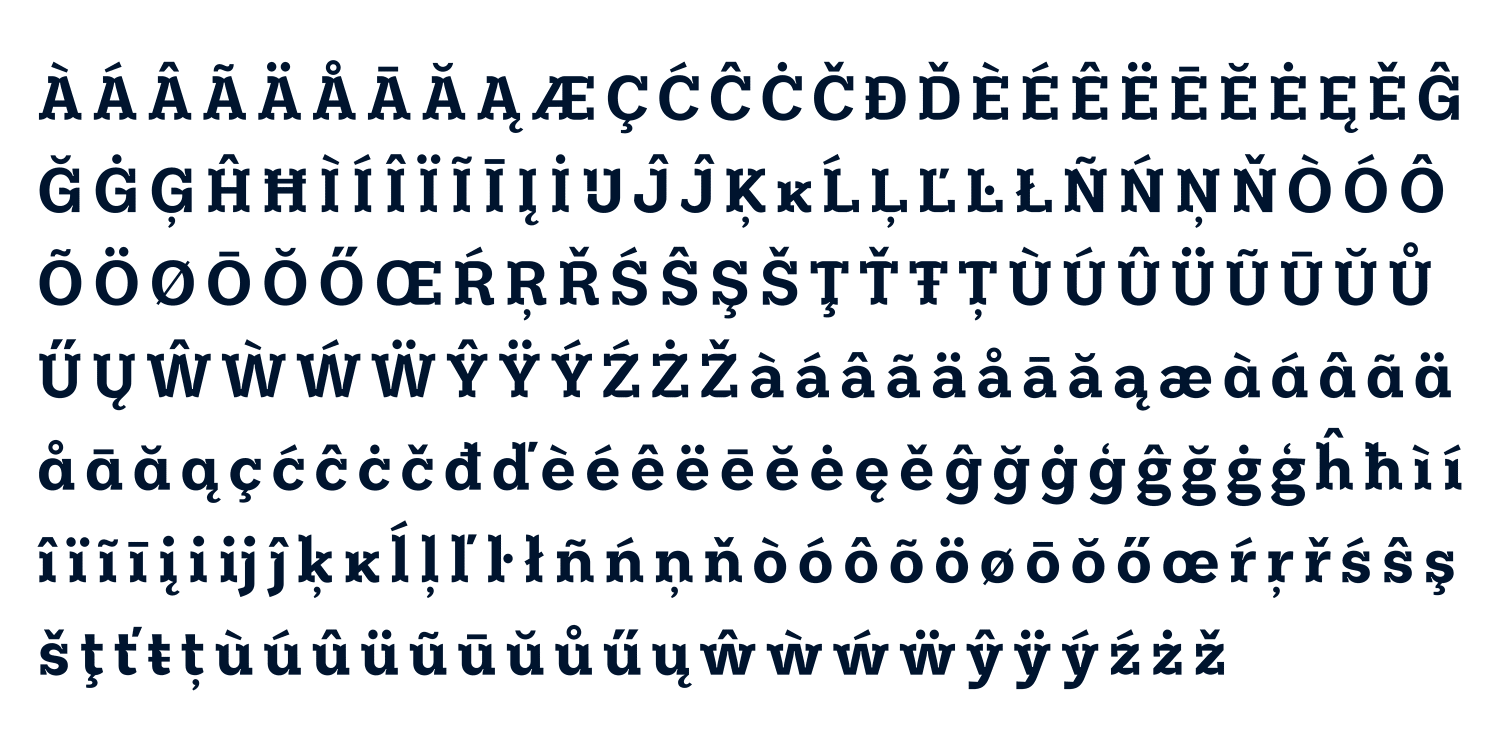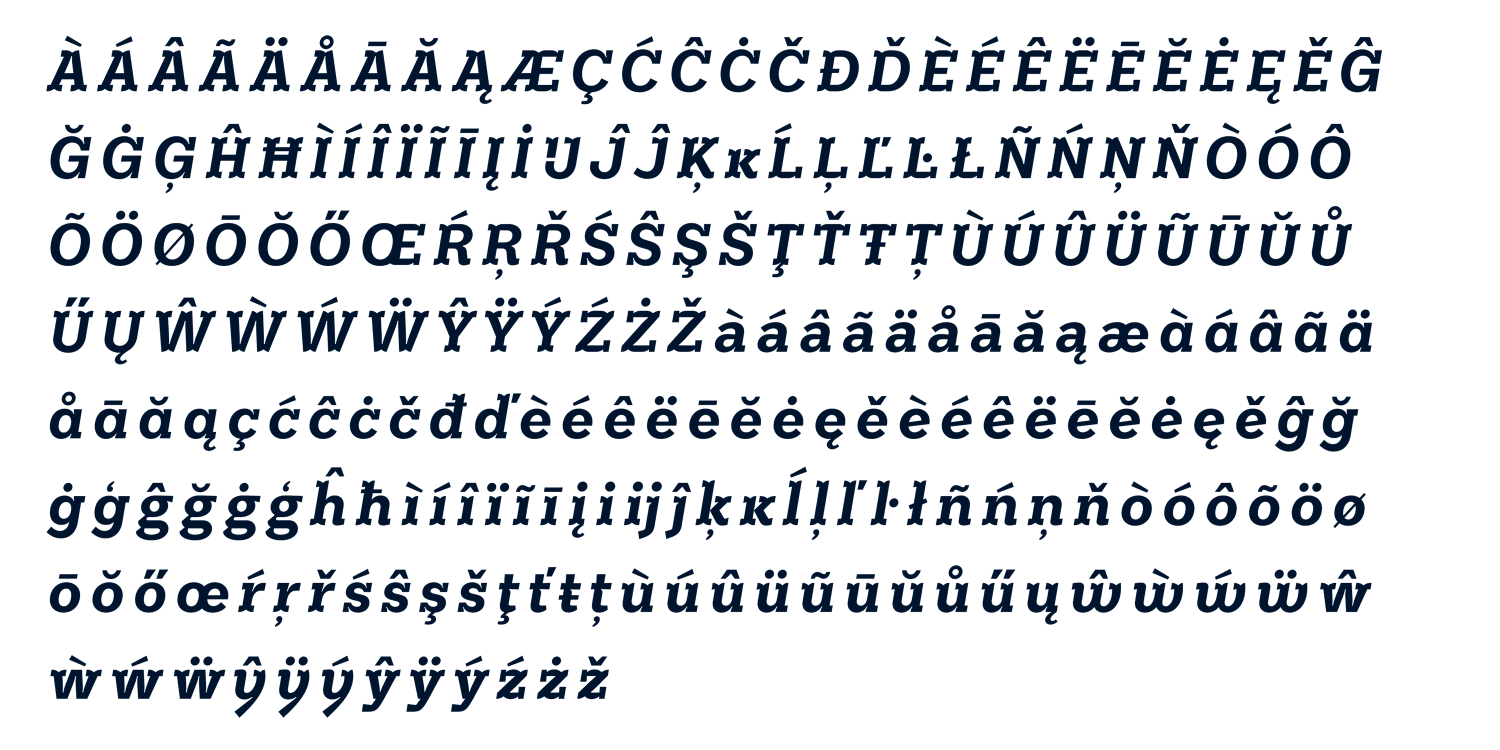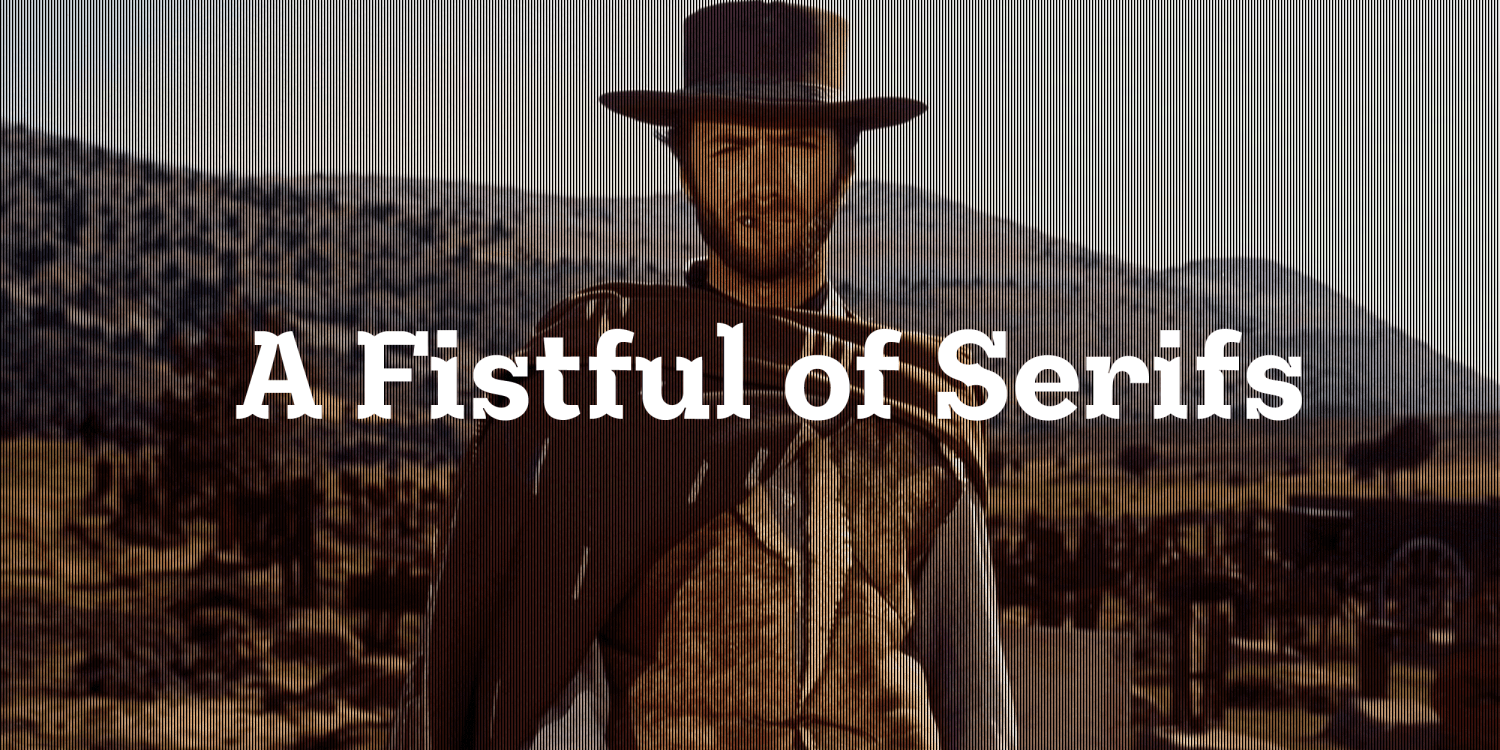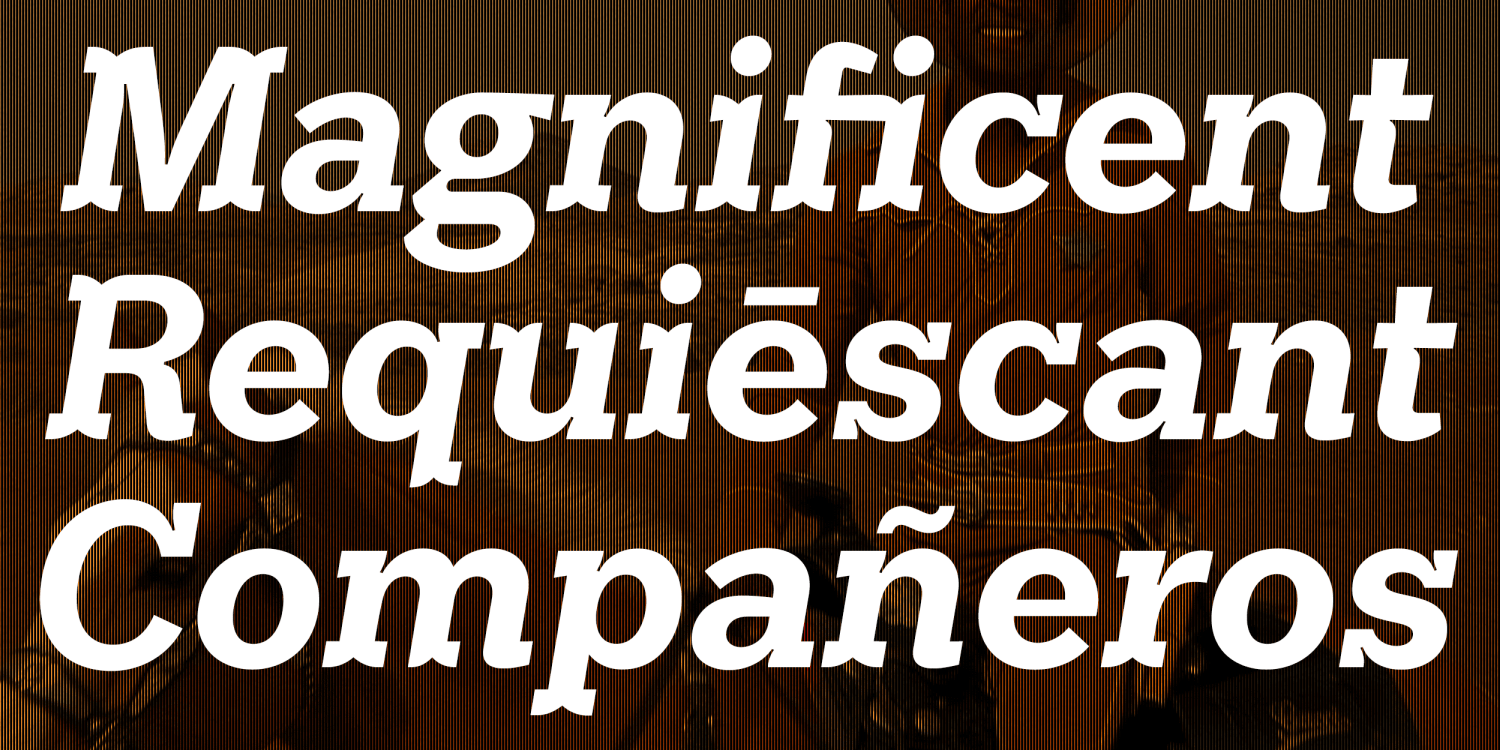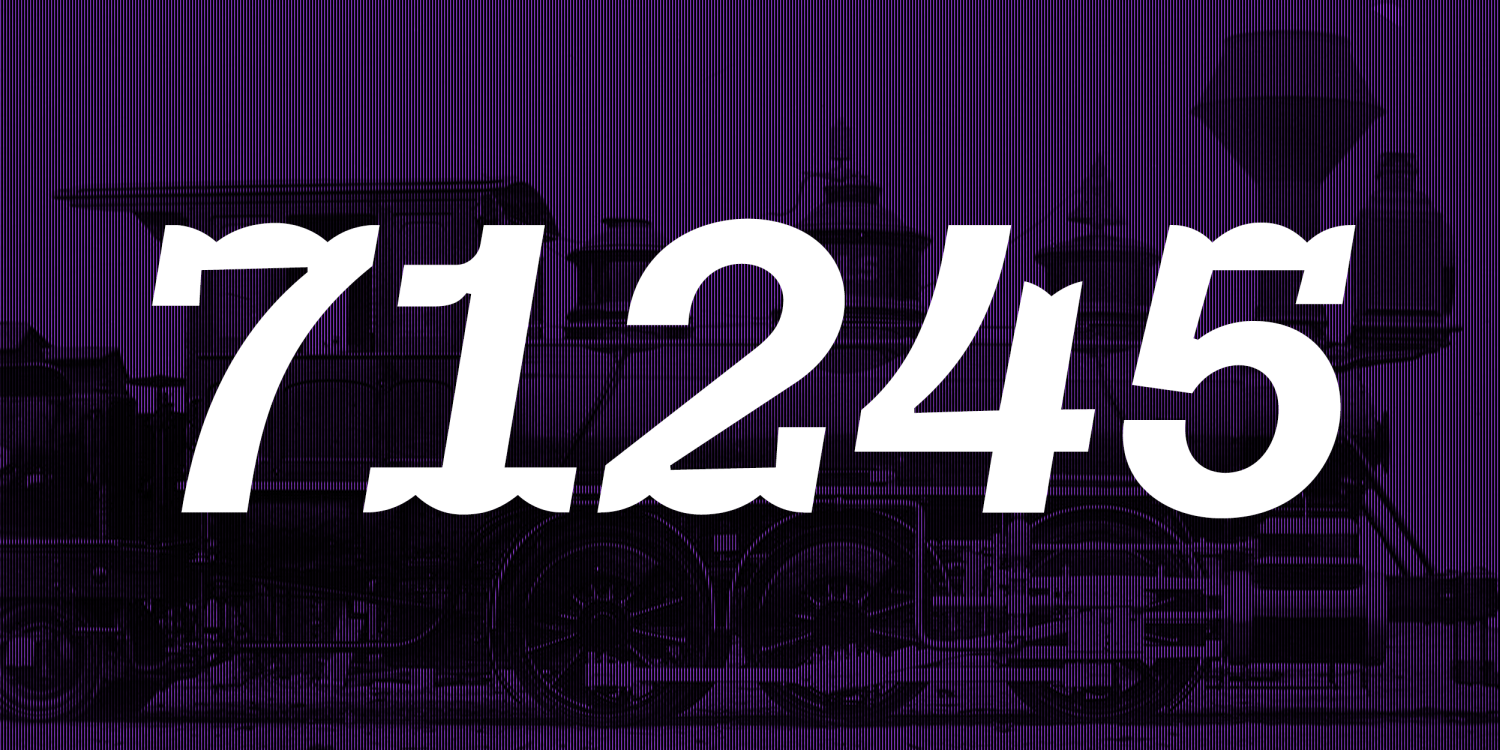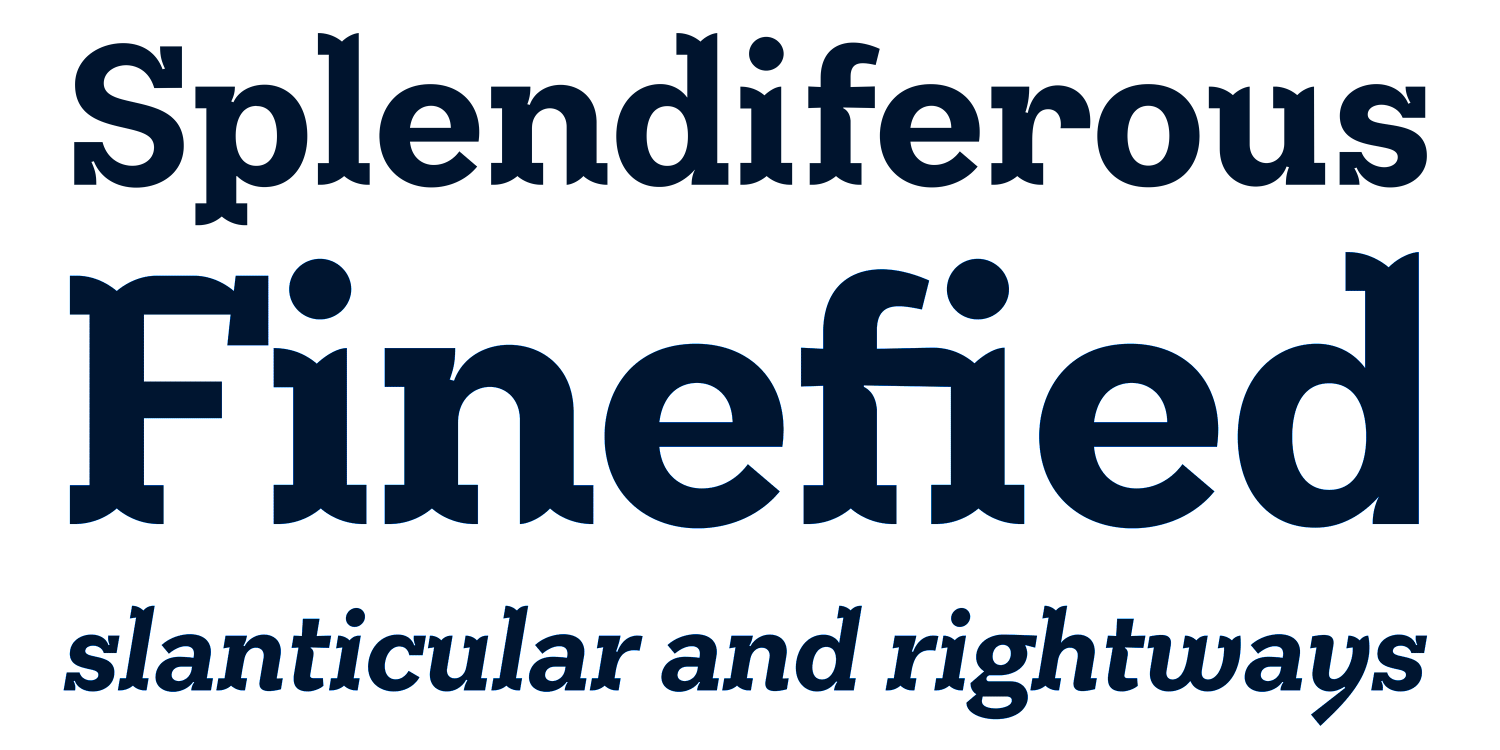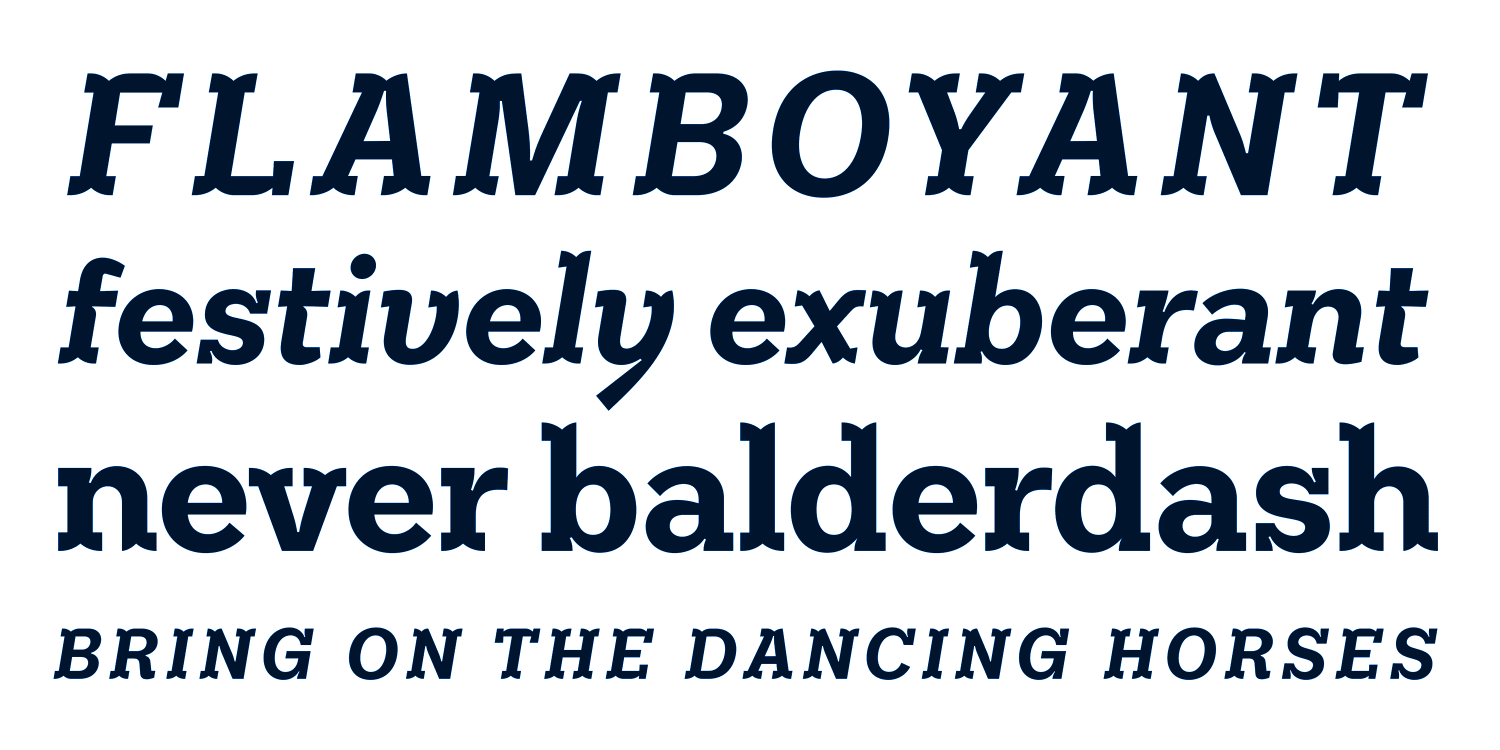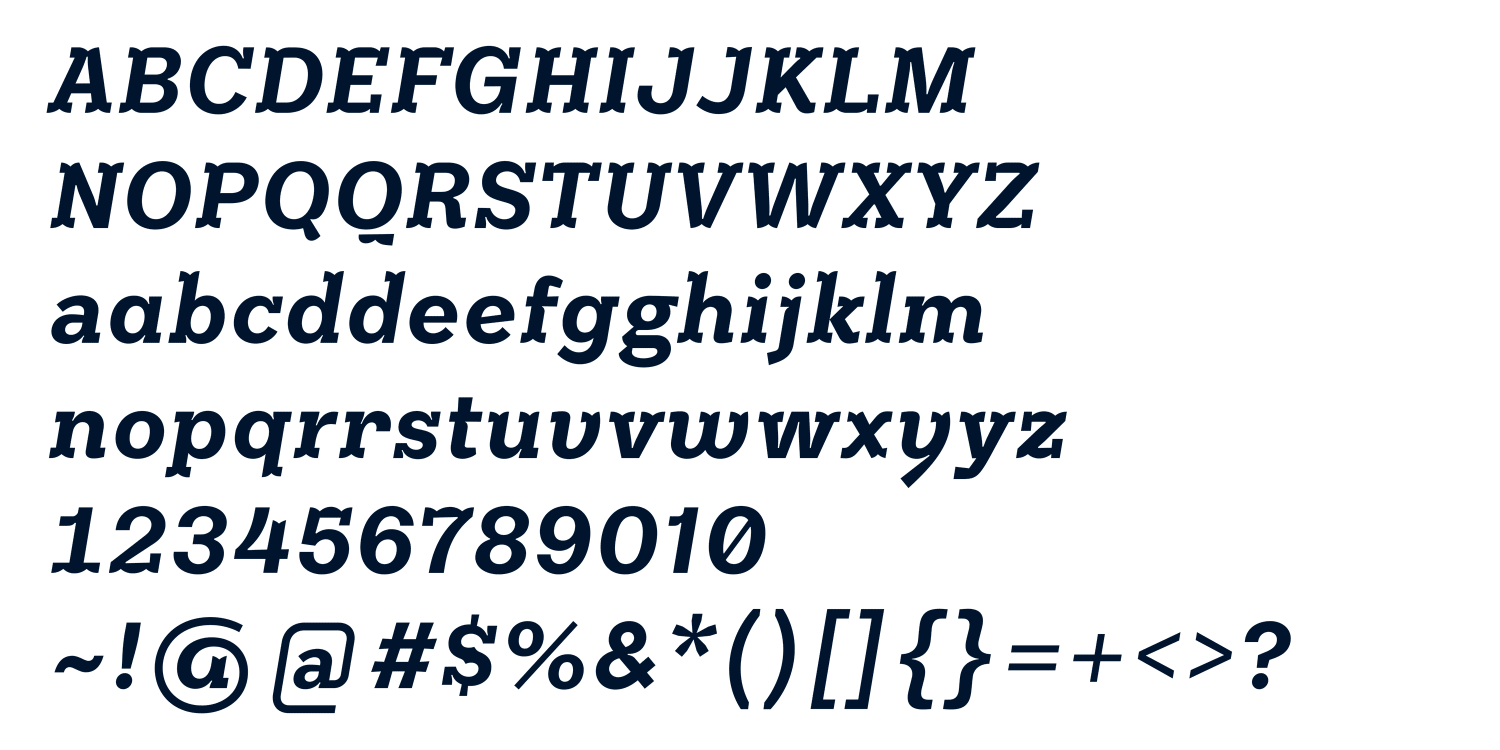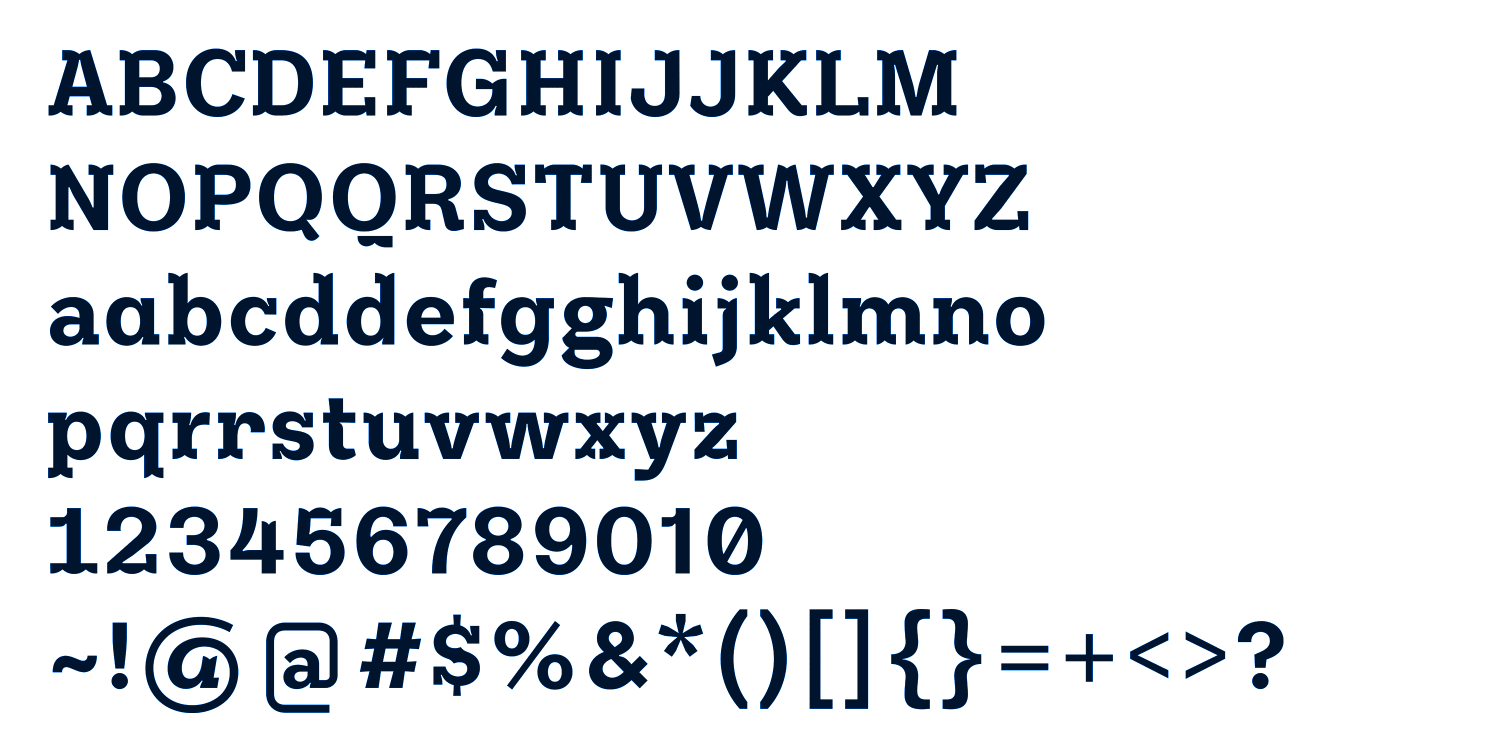
Marsalito Pro Bold
Marsalito Pro is a display typeface in two styles that rides the high plains above its sturdy cousin, Marsam, with a fancier cut and a more flamboyant appeal. Marsalito Pro also speaks many languages from near and far. It tips its hat to a jaunty rococo of yore while looking to the horizon as a distinctly modern typeface with a full array of Opentype features. It is saddled-up with ligatures, extended symbols, tablature, superscript and subscript numerals, and adds alternate figures for extra embellishments. Marsalito Pro was developed with both editorial and branding in mind, whenever you need a distinct voice that steps out from the shadows wearing the finest boots in town.